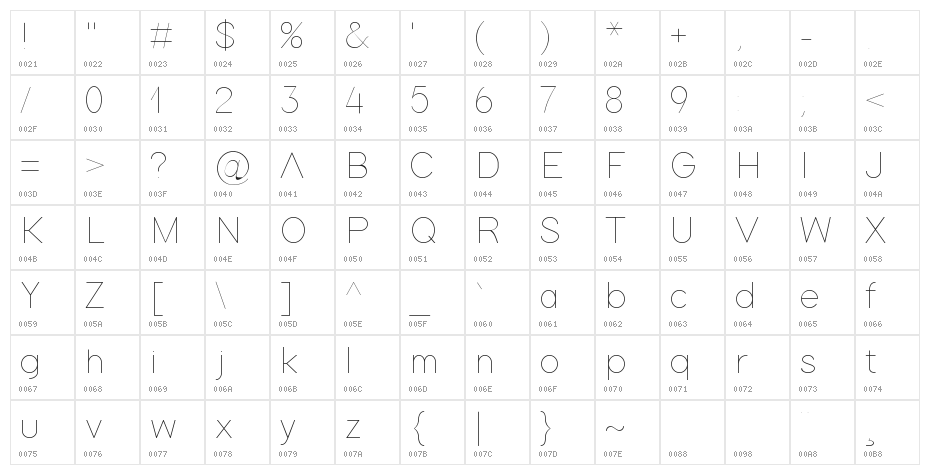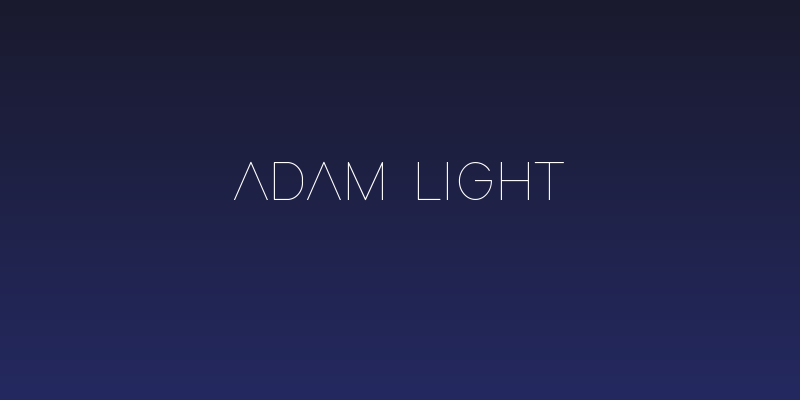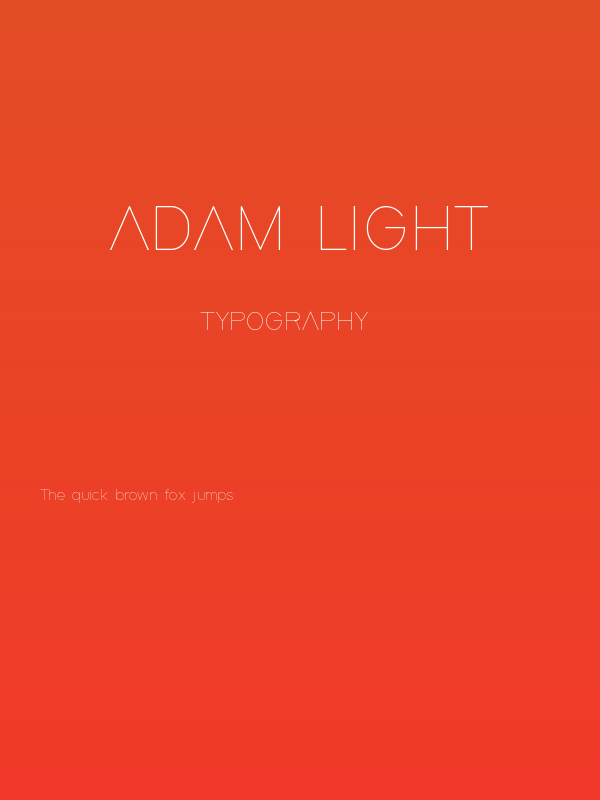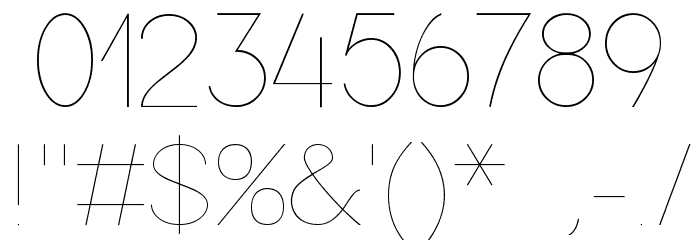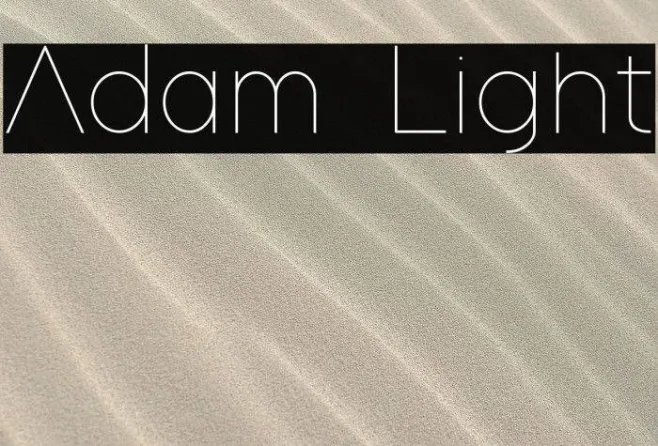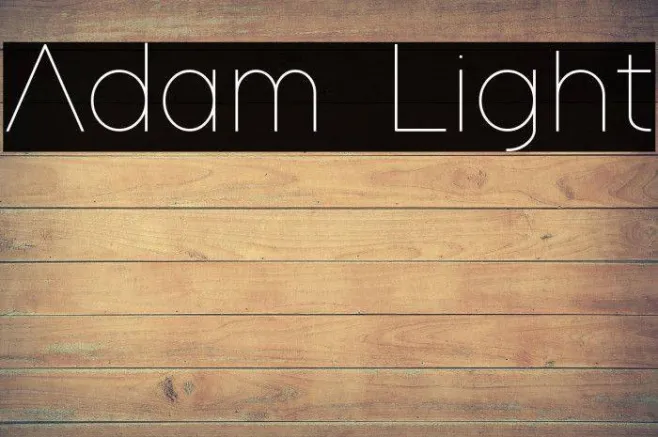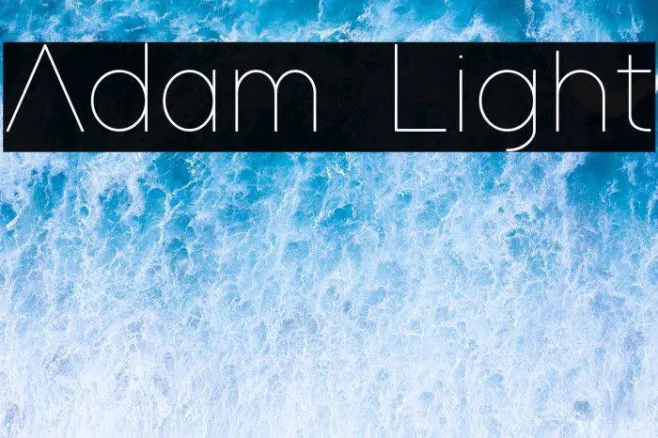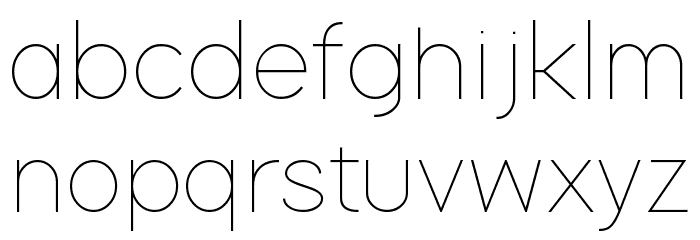
Adam Light Font
Adam Light Description
This font features a clean, geometric design with a modern aesthetic. The characters are constructed with precise, straight lines and smooth curves, creating a sense of balance and harmony. The uppercase and lowercase letters maintain a consistent height, contributing to a uniform appearance. The numerals and special characters are designed to complement the letterforms, ensuring readability and style. The overall look is sleek and minimalistic, making it suitable for contemporary design projects.